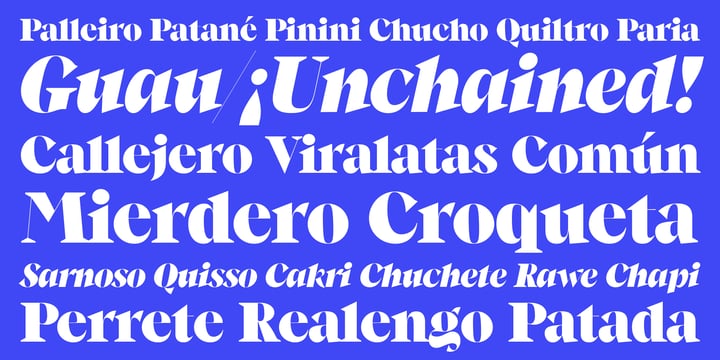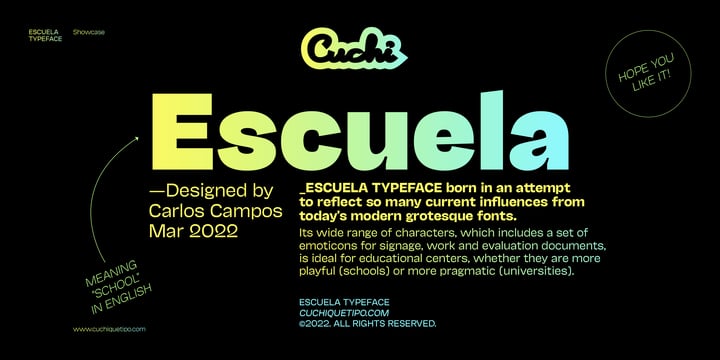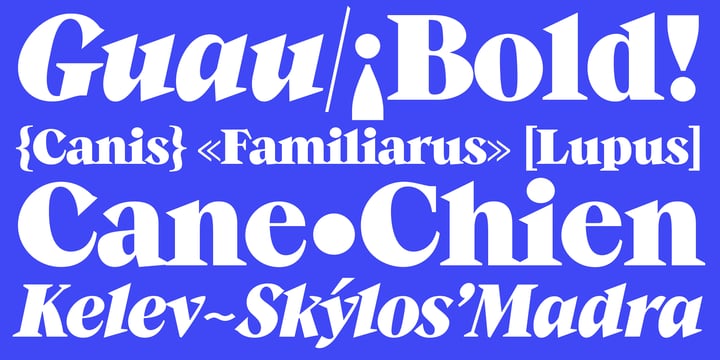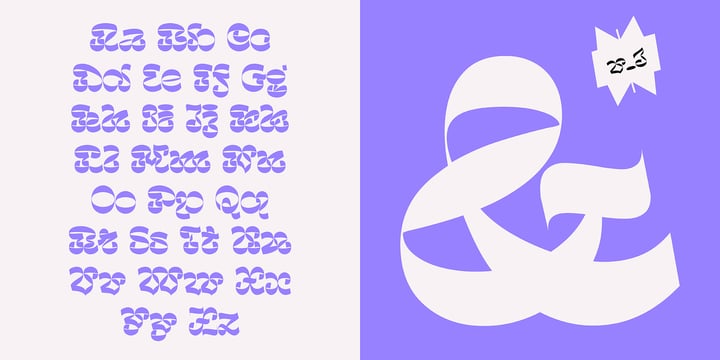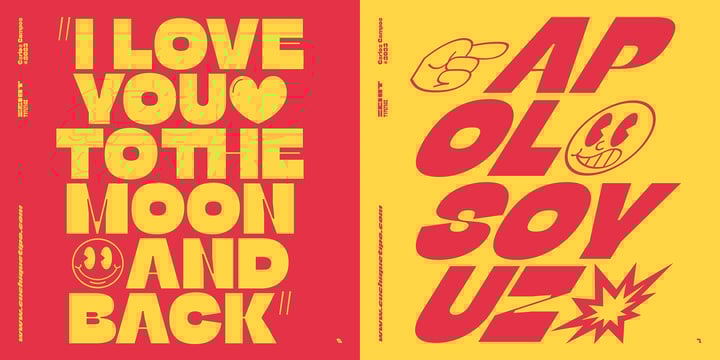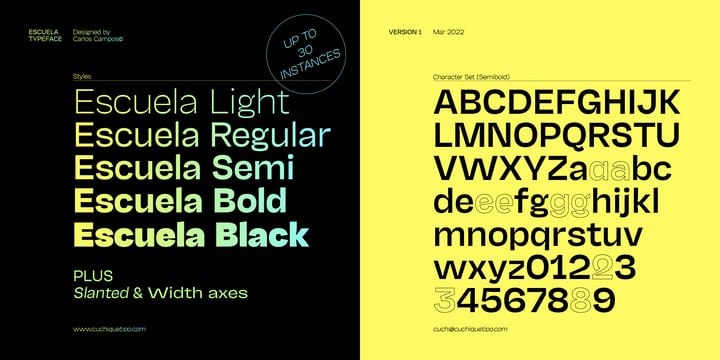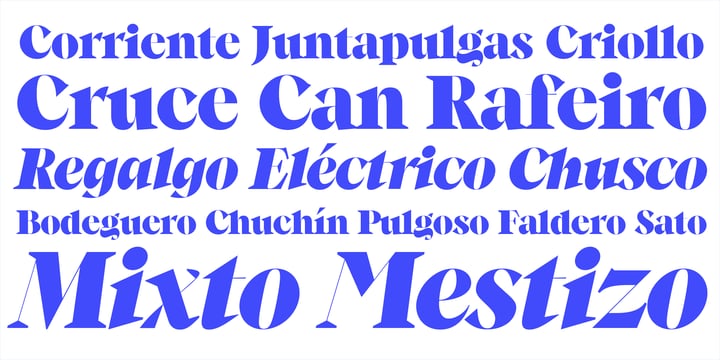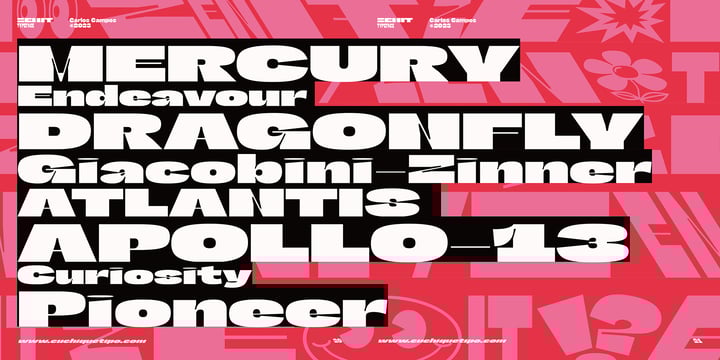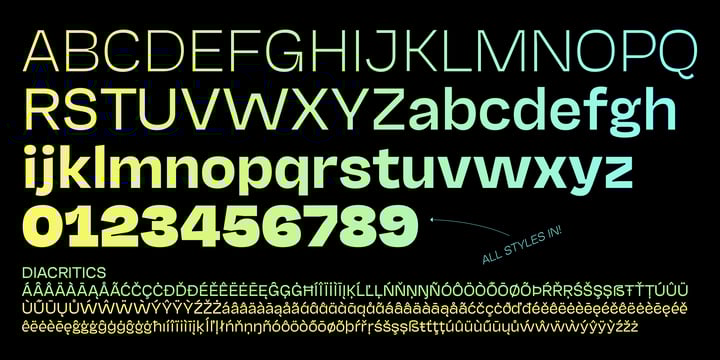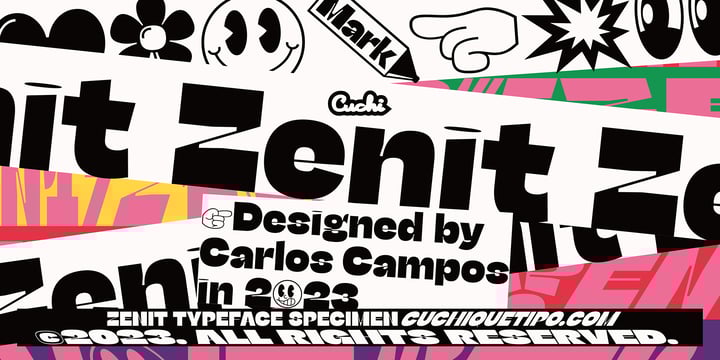
Sans Serif Bundle by Cuchi
In this Sans Serif Bundle by Cuchi, you will have four typefaces with a very unique and genuine personality, so powerful and eye-catching that they will attract everyone's attention. These typefaces are:
ESCUELA (meaning “school” in english) typeface is born in an attempt to reflect so many current influences of modern grotesque fonts that are trying to better reflect the values of today's world; Escuela can be striking and ideal for headlines in large text and heavy weights, but at the same time serious and readable in smaller bodies or regular and fine weights.
ZENIT is a very bold typeface. In an effort to design a singular graphic and visual letters system, the contrasts and proportions of “Zenit” boosts up and are squeezed as much as possible, resulting in a very particular aesthetic.
GUAU (meaning “bark!l” in english) is a highly-contrast display font with as many weights and versions as there are types of puppies in this fantastic world.
MIAU (meaning “meow” in english) is a decorative typeface, designed only to be used for letters or single words. It is built from the basic skeleton of script letters, and its origin and main concept is based on experimenting with shapes that play the extreme of readability.
In this Sans Serif Bundle by Cuchi, you will have four typefaces with a very unique and genuine personality, so powerful and eye-catching that they will attract everyone's attention. These typefaces are:
ESCUELA (meaning “school” in english) typeface is born in an attempt to reflect so many current influences of modern grotesque fonts that are trying to better reflect the values of today's world; Escuela can be striking and ideal for headlines in large text and heavy weights, but at the same time serious and readable in smaller bodies or regular and fine weights.
ZENIT is a very bold typeface. In an effort to design a singular graphic and visual letters system, the contrasts and proportions of “Zenit” boosts up and are squeezed as much as possible, resulting in a very particular aesthetic.
GUAU (meaning “bark!l” in english) is a highly-contrast display font with as many weights and versions as there are types of puppies in this fantastic world.
MIAU (meaning “meow” in english) is a decorative typeface, designed only to be used for letters or single words. It is built from the basic skeleton of script letters, and its origin and main concept is based on experimenting with shapes that play the extreme of readability.